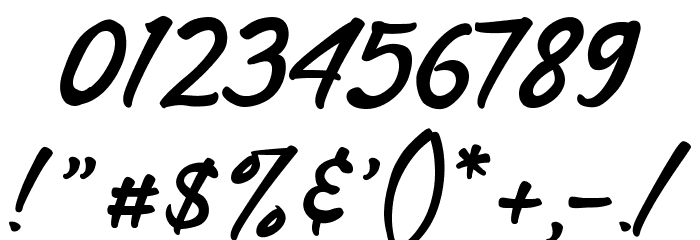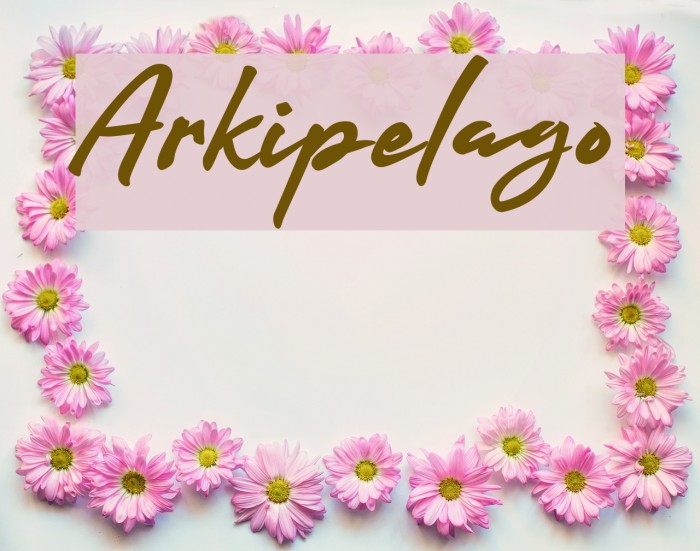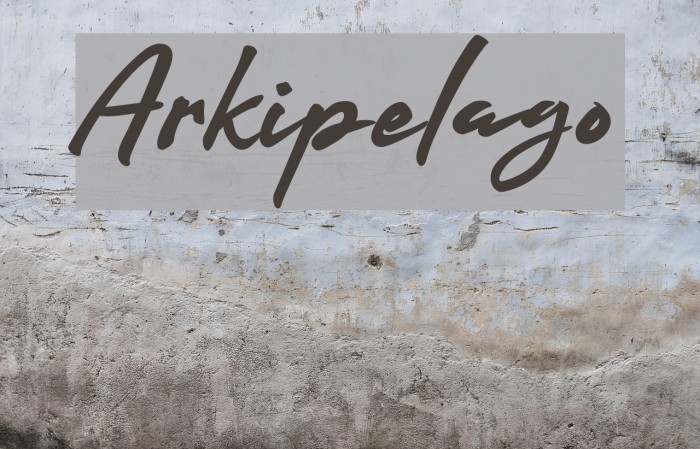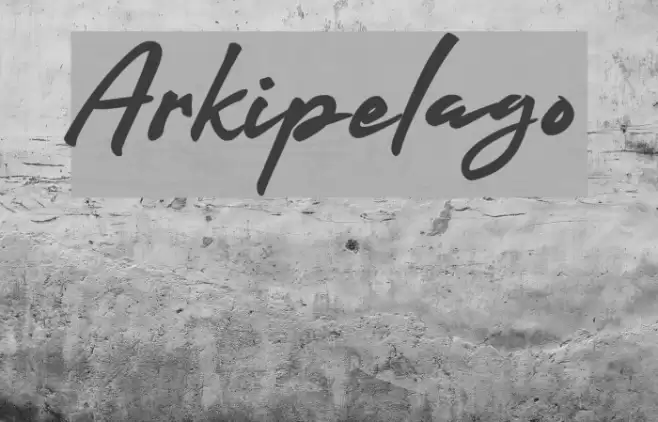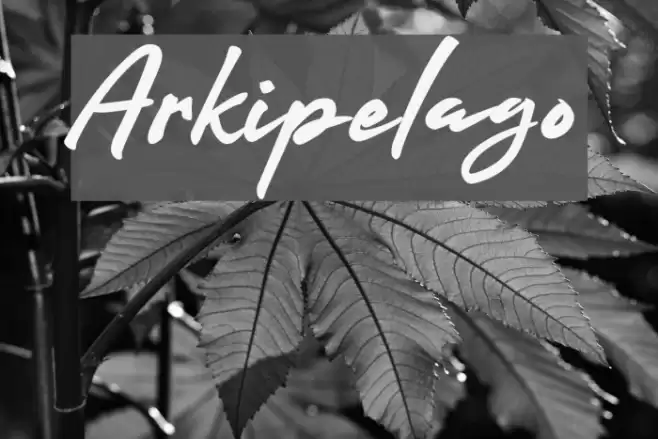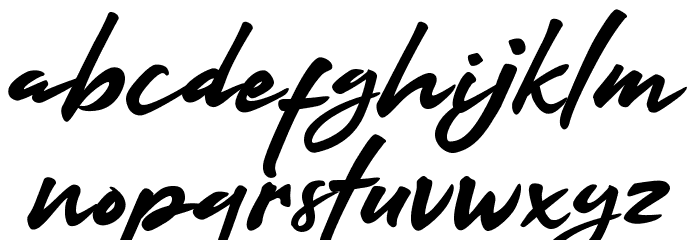
Arkipelago Font
Arkipelago Description
This font exudes a dynamic and energetic vibe, characterized by its bold and fluid strokes that mimic the natural flow of handwriting. The letters are slightly slanted, adding a sense of motion and liveliness. The uppercase and lowercase letters maintain a consistent style, with smooth curves and sharp edges that enhance readability. The numbers and special characters follow the same aesthetic, ensuring a cohesive look across all text. This font is perfect for projects that require a personal touch, such as invitations, greeting cards, or branding materials. Its handwritten style makes it ideal for conveying warmth and authenticity.
| Use Case | Headlines, Logos, Invitations |
| Proposed Projects | Ideal for invitations, greeting cards, branding materials, and any project requiring a personal touch. |